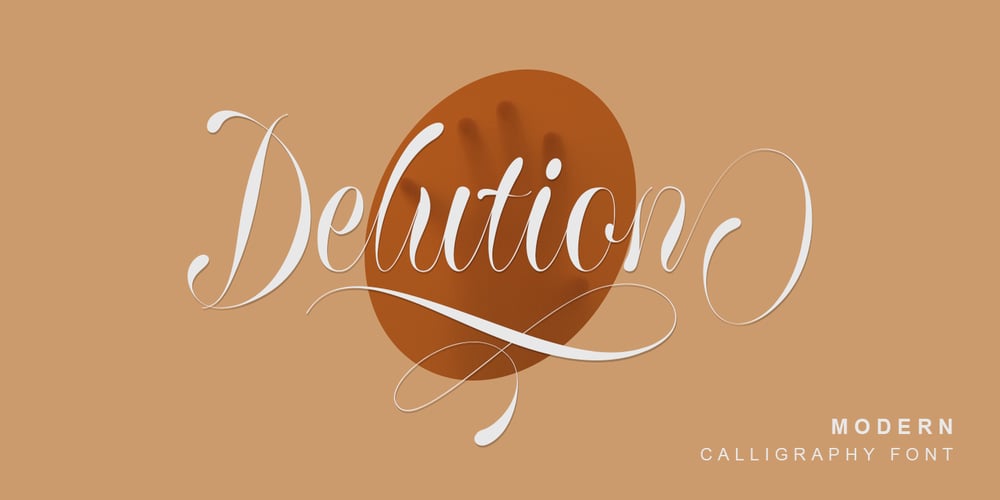
Delution Font Family was designed by Dwi Ahidian and published by Lemonthe. Delution contains 1 styles and family package options. Delution is a beautiful modern calligraphy font. Delution Font is perfect for many different project such as logos & branding, invitation, stationery, wedding designs, social media posts, advertisements, product packaging, product designs, label, photography, watermark, special events or anything.